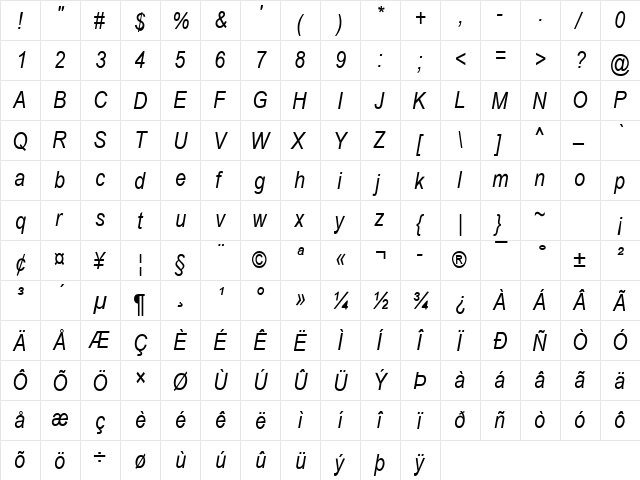
Communication36 Regular
Design Context for Communication36 Typeface
Communication36 is a composed and adaptable typeface that performs quietly and consistently across a wide range of design contexts.
Pro Tip: Use Communication36 in both headline and body roles to test its range before committing to a single application.